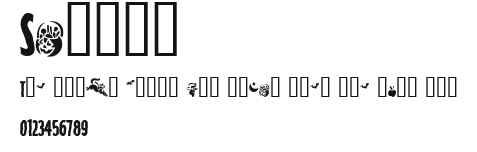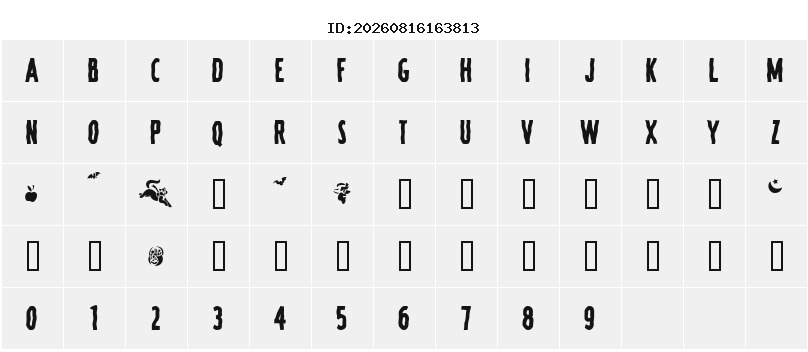
Spooky Preview
• Font Name: Spooky
• Full Font Name: Spooky
• PostScript Name: Spooky
About Spooky.ttf
Spooky.ttf is a modern, elegant sans-serif font designed for ultimate readability and visual harmony. Perfect for branding, headlines, web design, and print materials.